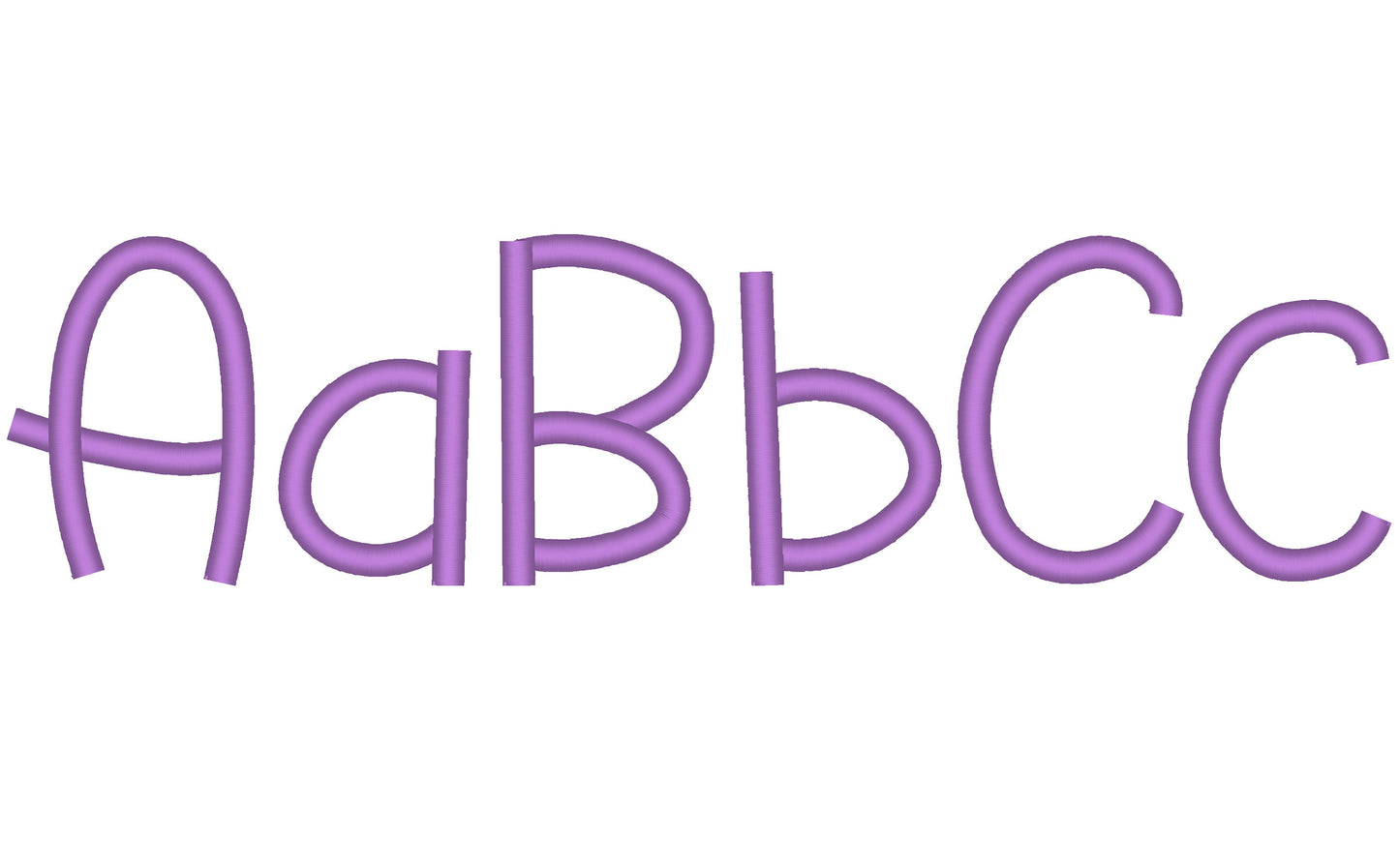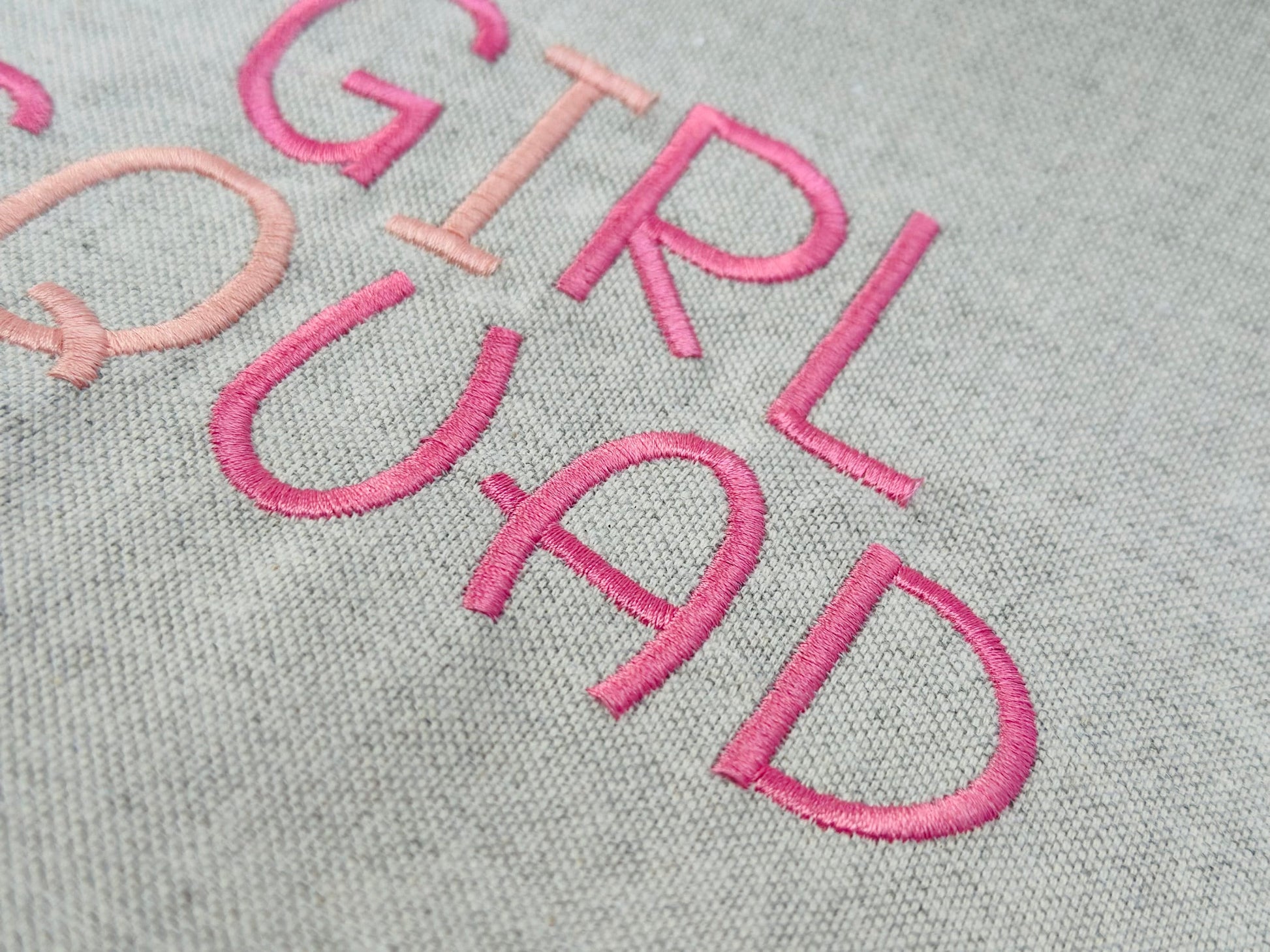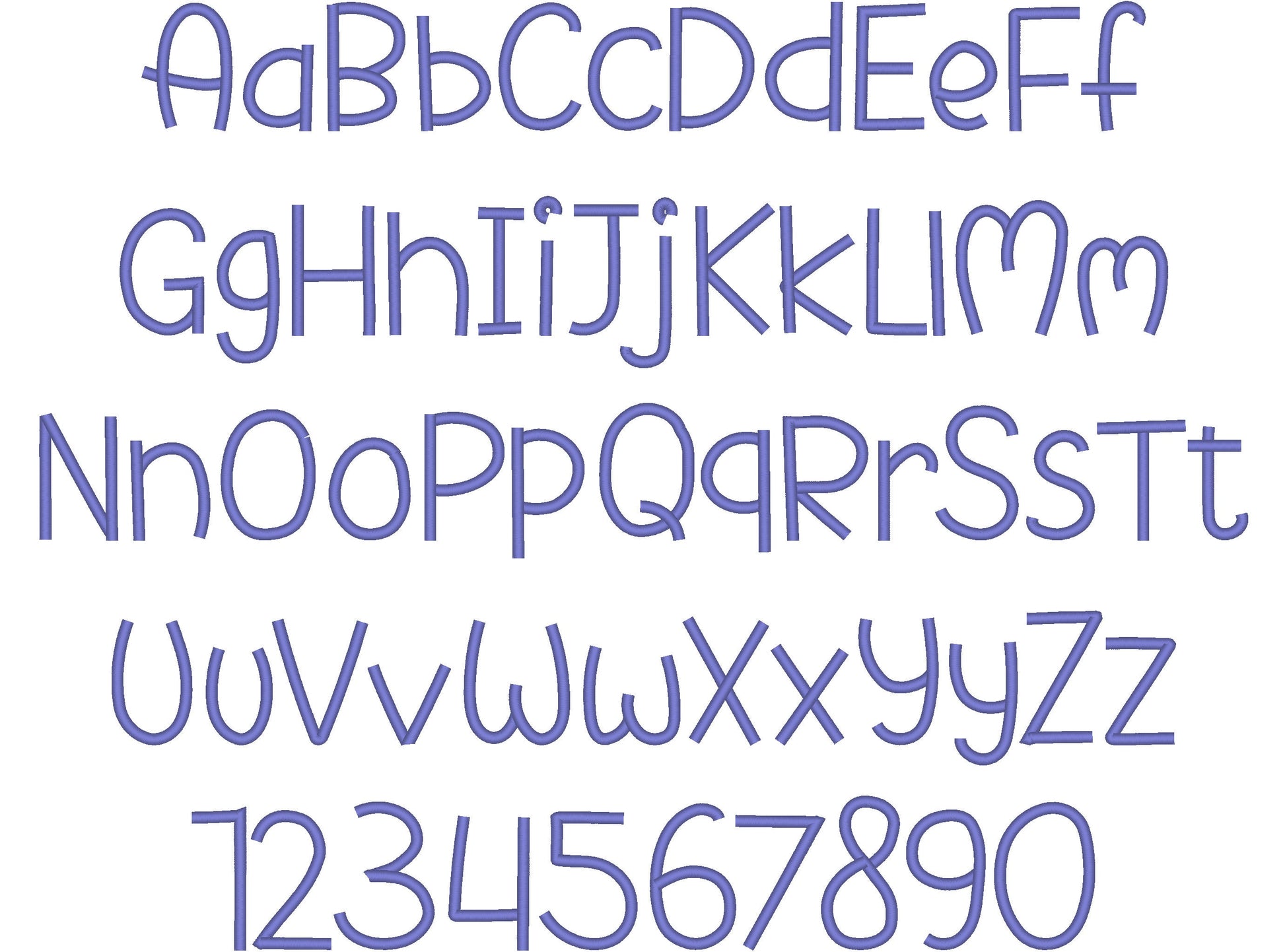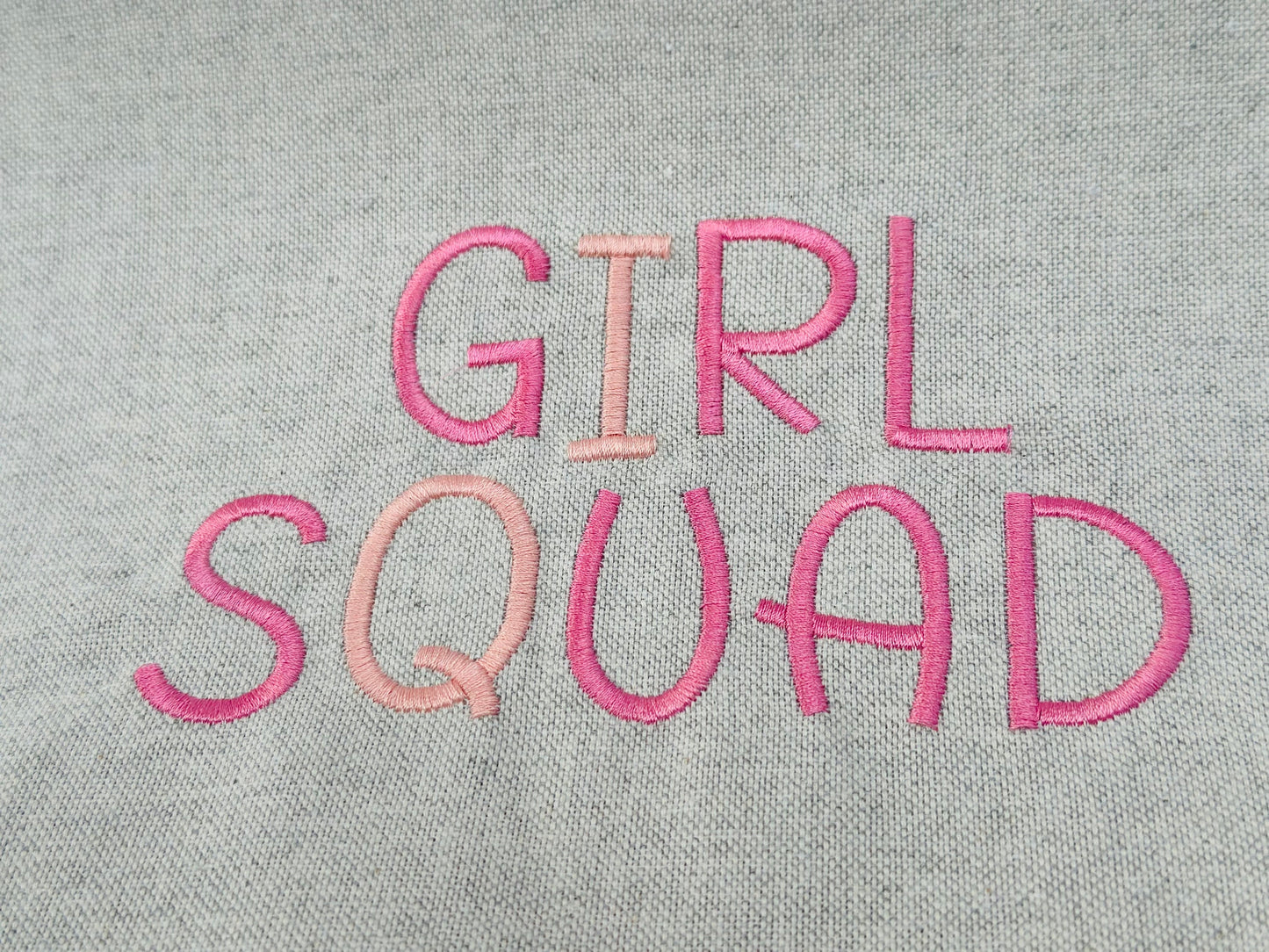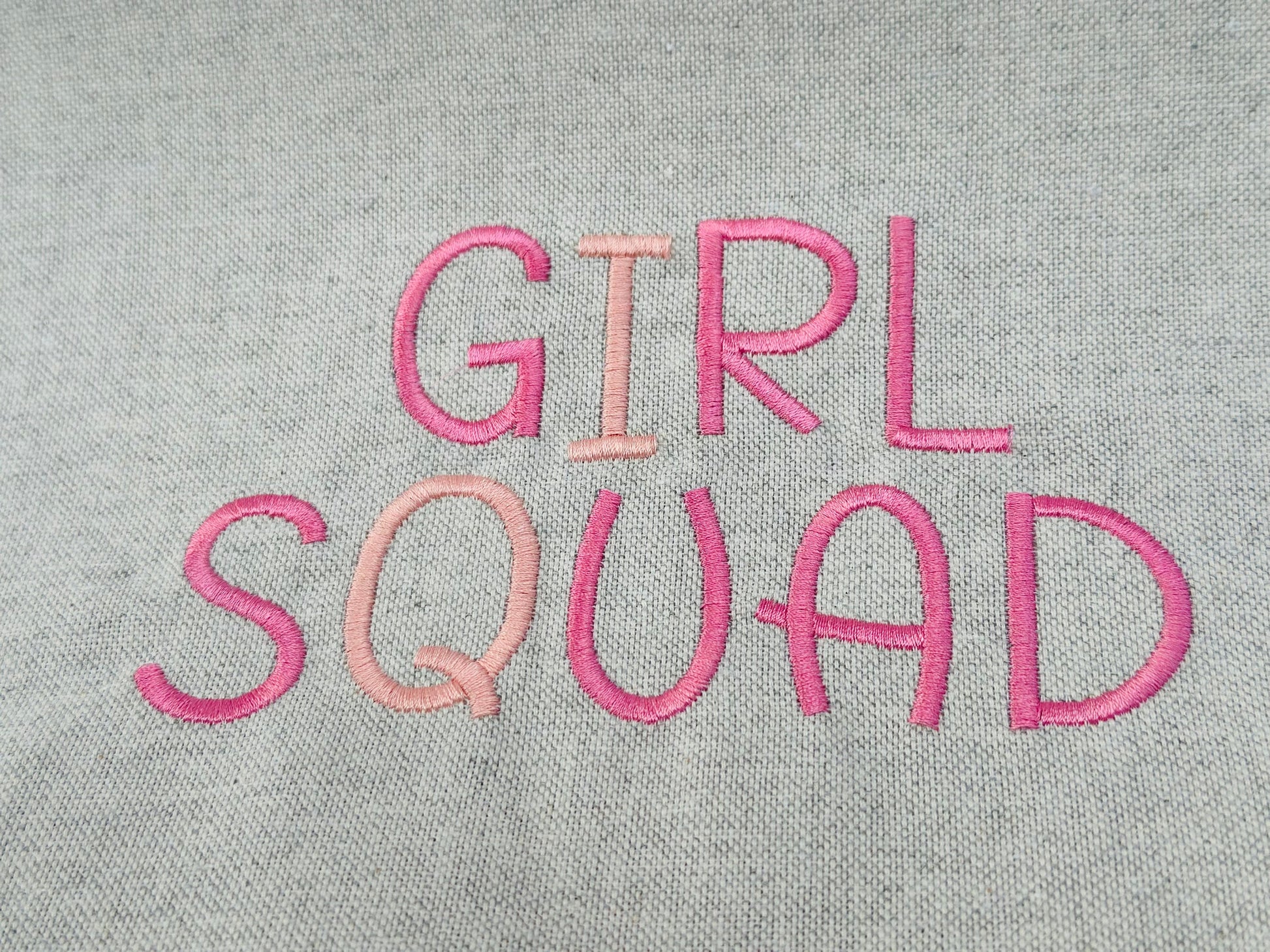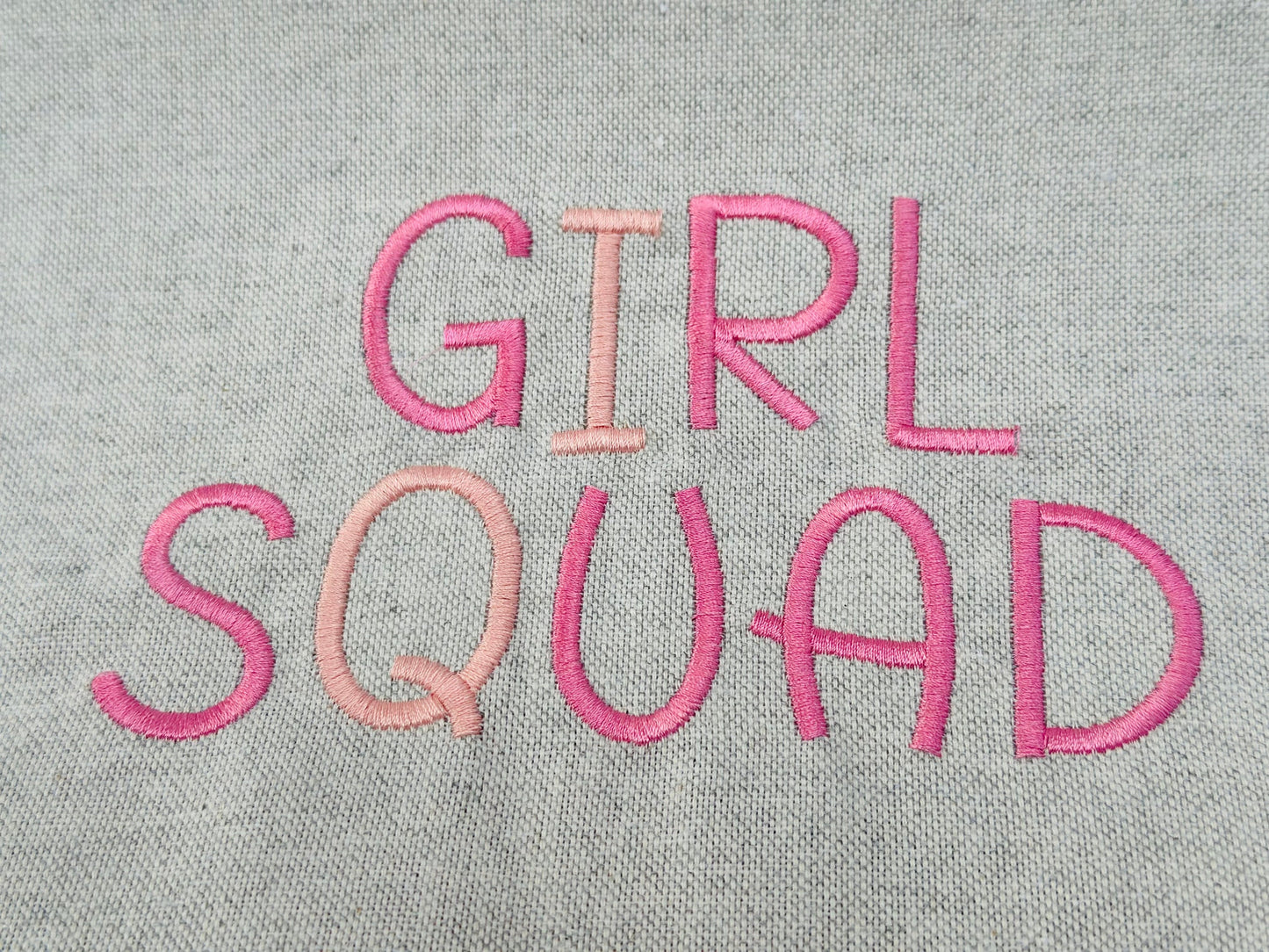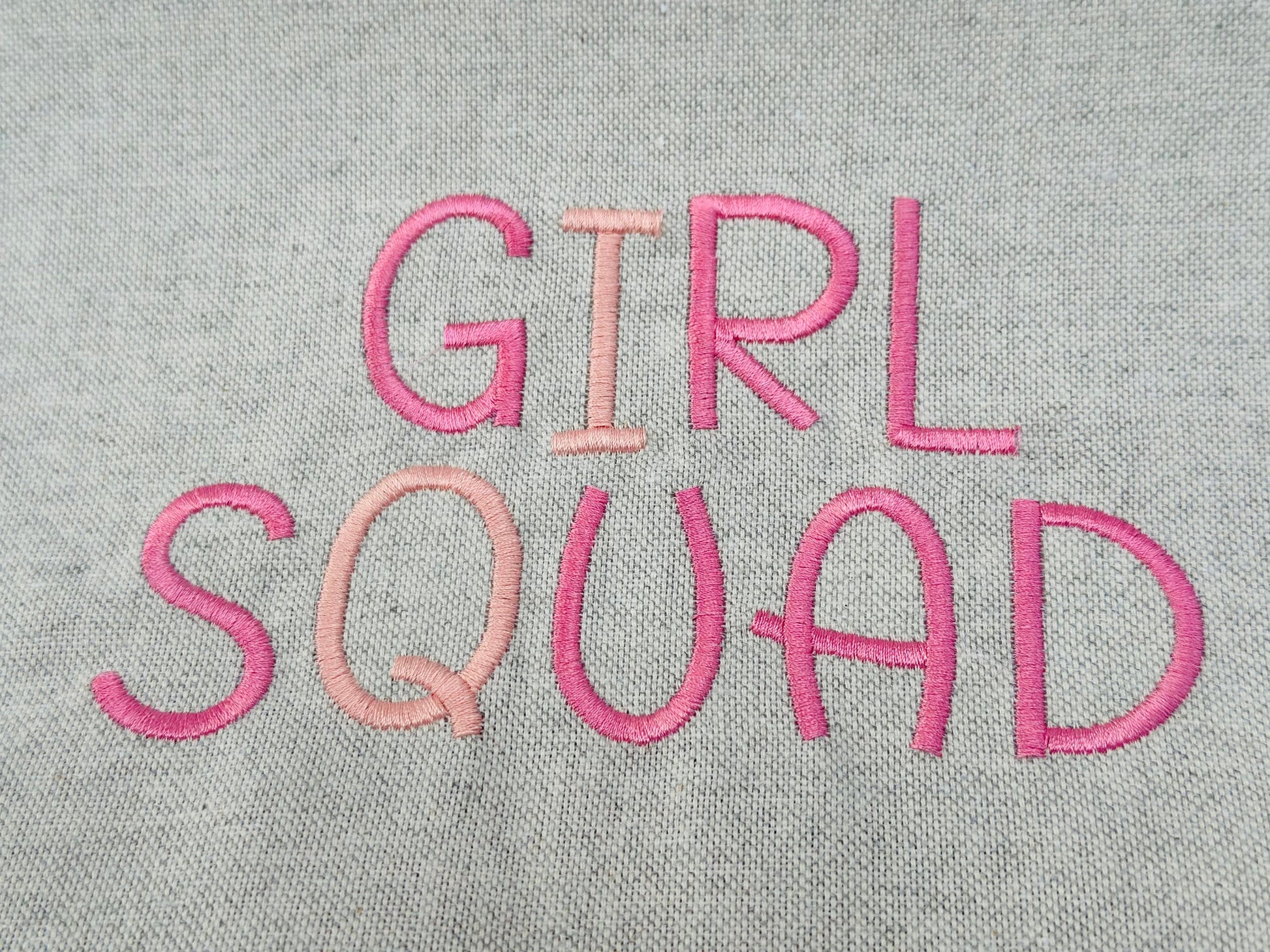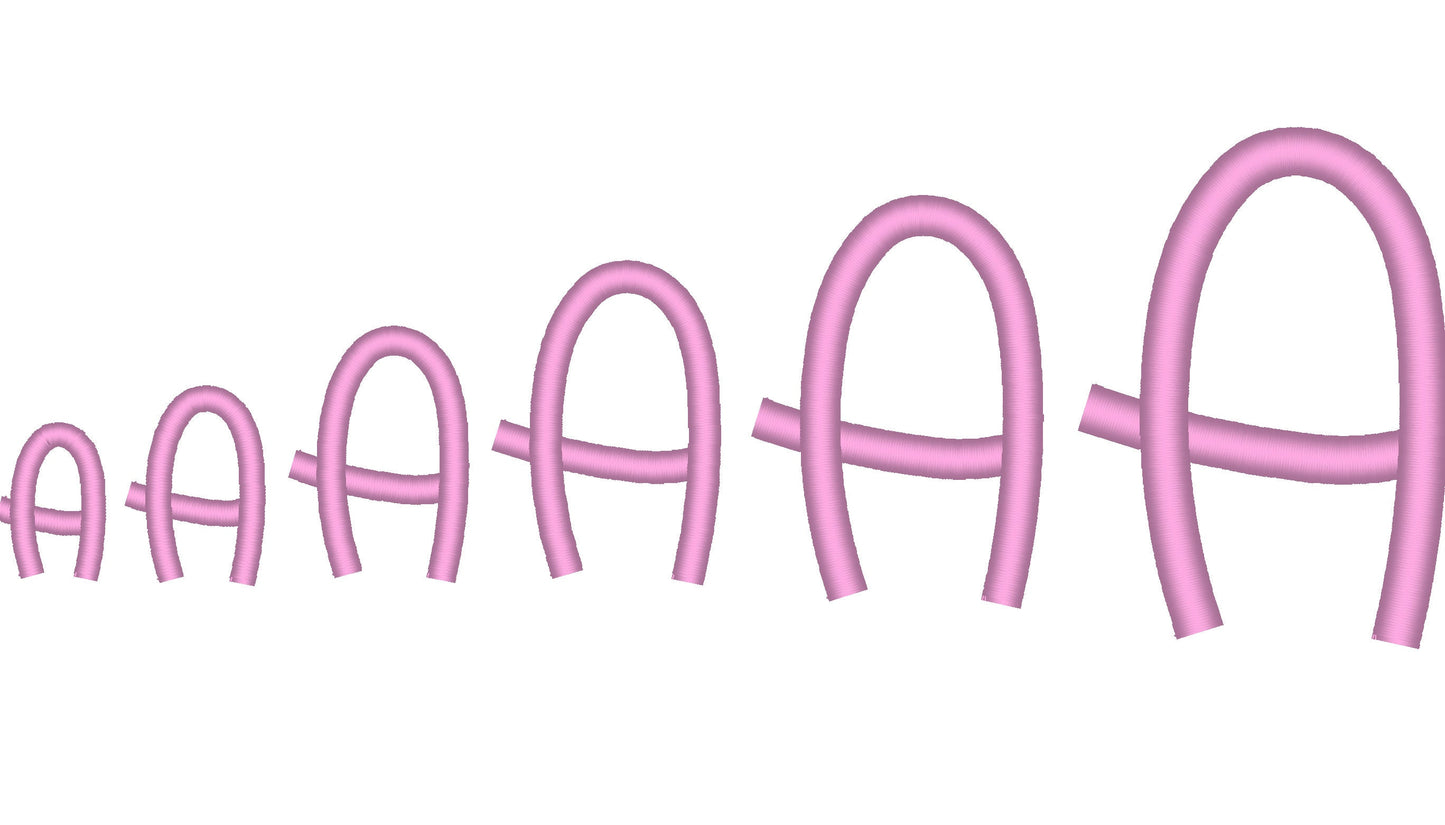
Baby Satin Stitch Fancy Font
Sizes (inches): 0.7", 1", 1.2", 1.6", 2", 2.5", 3.2"
Uppercase and lowercase letters and numbers 0 to 9. Seven sizes: 0.7, 1, 1.2, 1.6, 2, 2.5 and 3.2 inches.
- Baby satin stitch fancy font
- Uppercase, lowercase, numbers 0 to 9
- 7 sizes, 0.7 to 3.2 in